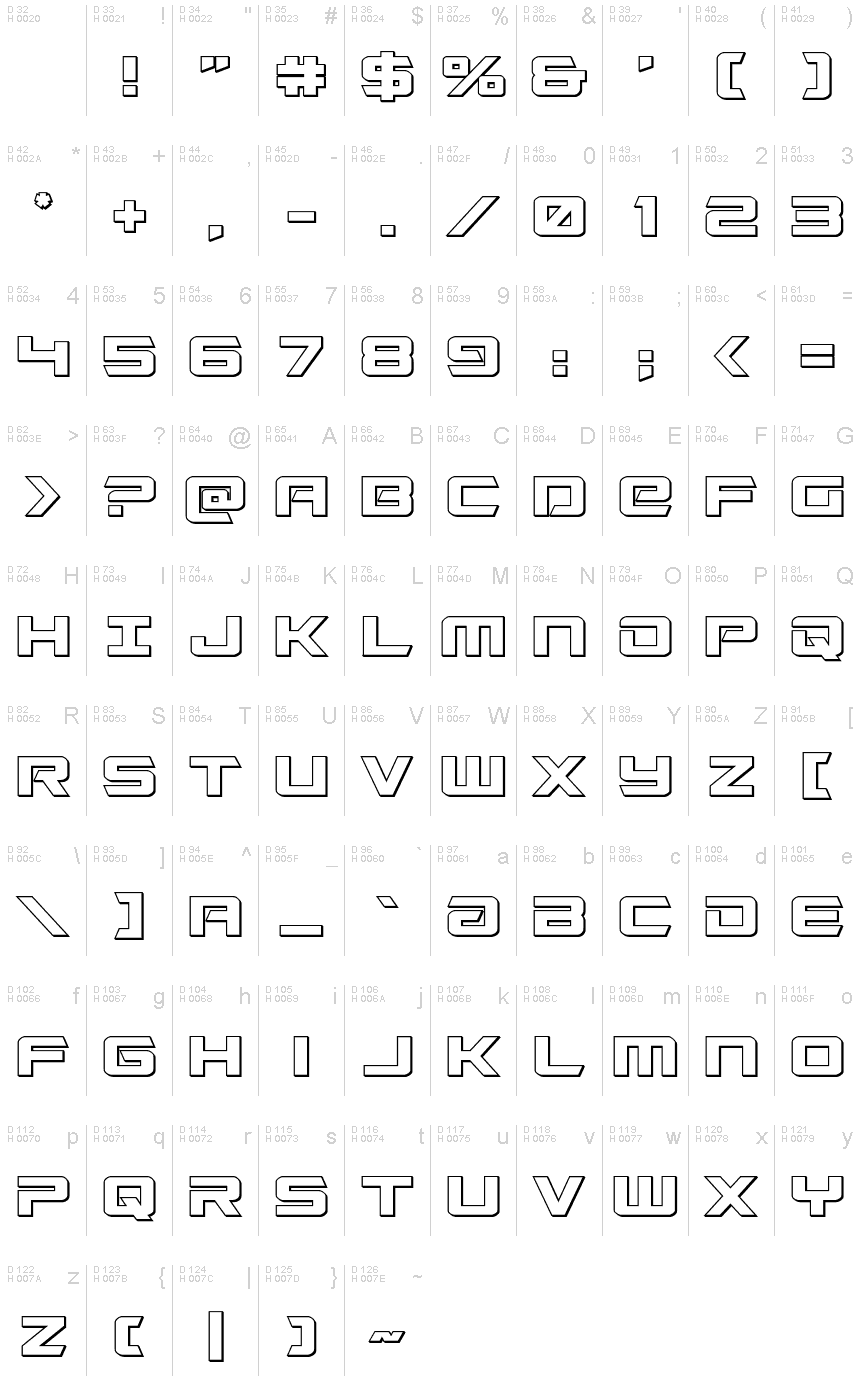
Captain Falcon 3D
Captain Falcon 3D, a bold and futuristic display font from the renowned Iconian Fonts, is here to elevate your creative projects. With its extra-expanded width and captivating 3D design, this font is perfect for eye-catching logos, game titles, movie posters, and futuristic advertisements. Its bold weight adds a strong visual impact to any project, while its unique style effortlessly captures the essence of modernity and innovation. Let Captain Falcon 3D soar through your designs and bring an unparalleled sense of energy and excitement to your next creative endeavor.